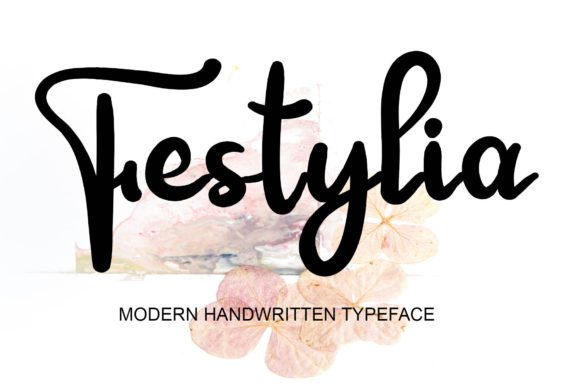
Immerse yourself in the world of Festylia Font, a breathtaking script font family that exudes charm and elegance. Stroke by stroke, this font evokes the beauty of handwritten artistry. Step into a world where your designs dance with personality and leave a lasting impression.
With Festylia Font, you'll discover a font that captures the essence of heartfelt emotions, making it the perfect choice for wedding invitations, thank you cards, and those special messages that deserve a touch of warmth. Its flowing lines add a touch of sophistication to logos and business cards, giving your brand a unique identity.
But Festylia Font's versatility doesn't stop there. It shines in quotes, greeting cards, and even the simplest of designs, transforming them into works of art. Its ability to blend seamlessly with various design aesthetics makes it a true gem for any creative project.
Whether you're a seasoned designer or just starting your creative journey, Festylia Font will be your trusted companion. Its user-friendly nature makes it accessible to all, allowing you to bring your design visions to life effortlessly.
So, why settle for ordinary when you can immerse yourself in the world of Festylia Font? Embrace the charm of handwritten artistry and watch your designs flourish with elegance. Let Festylia Font be the key to unlocking your creative potential and leaving a lasting impression on the world.